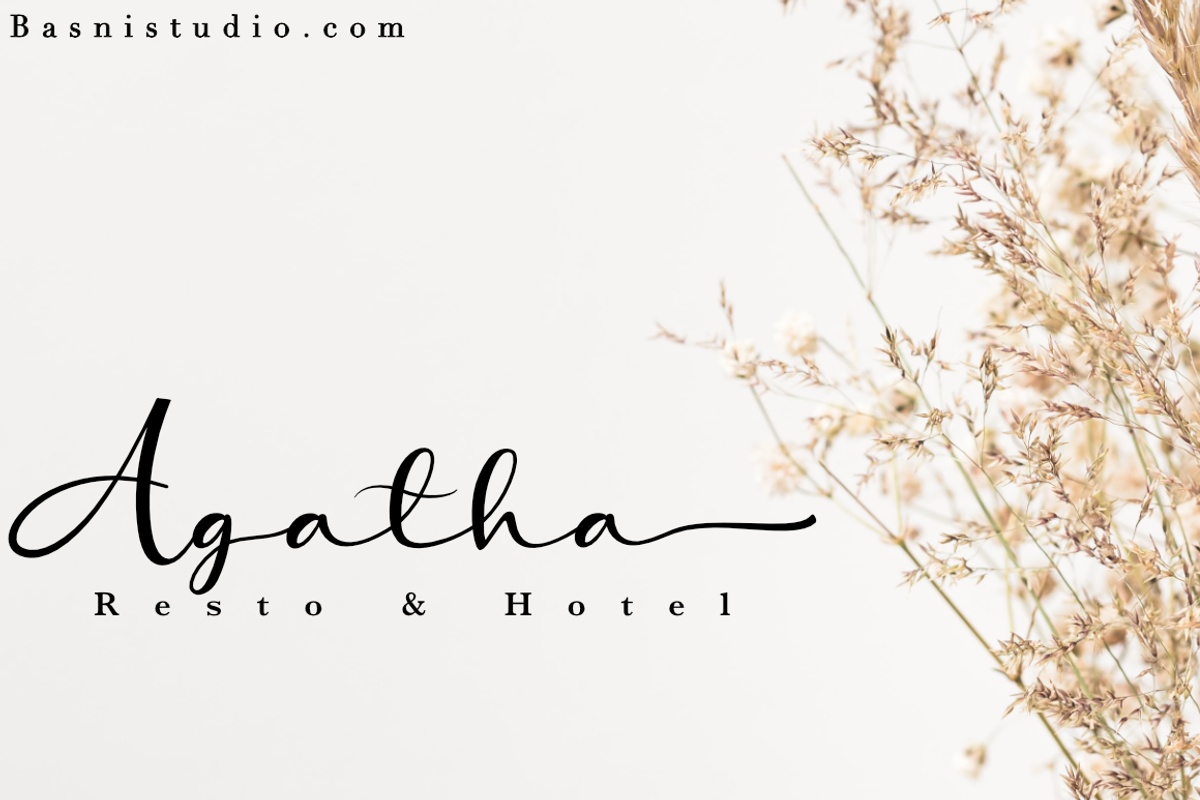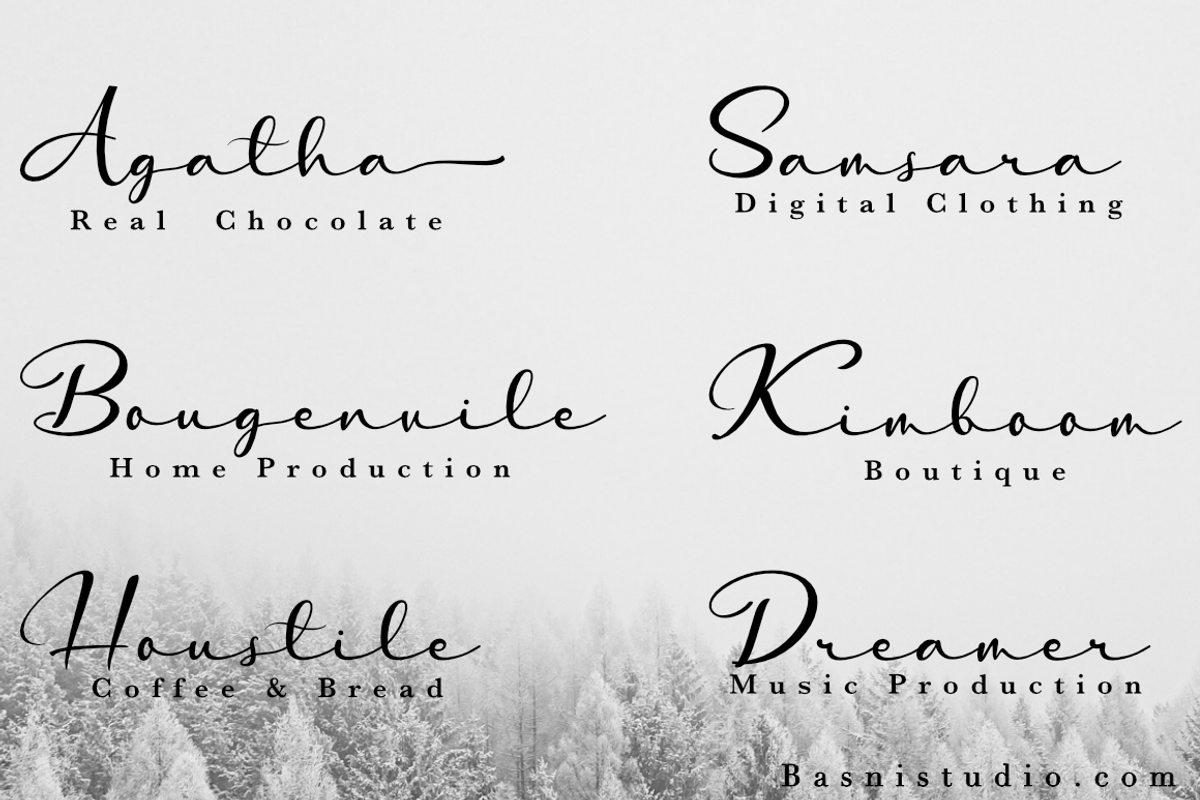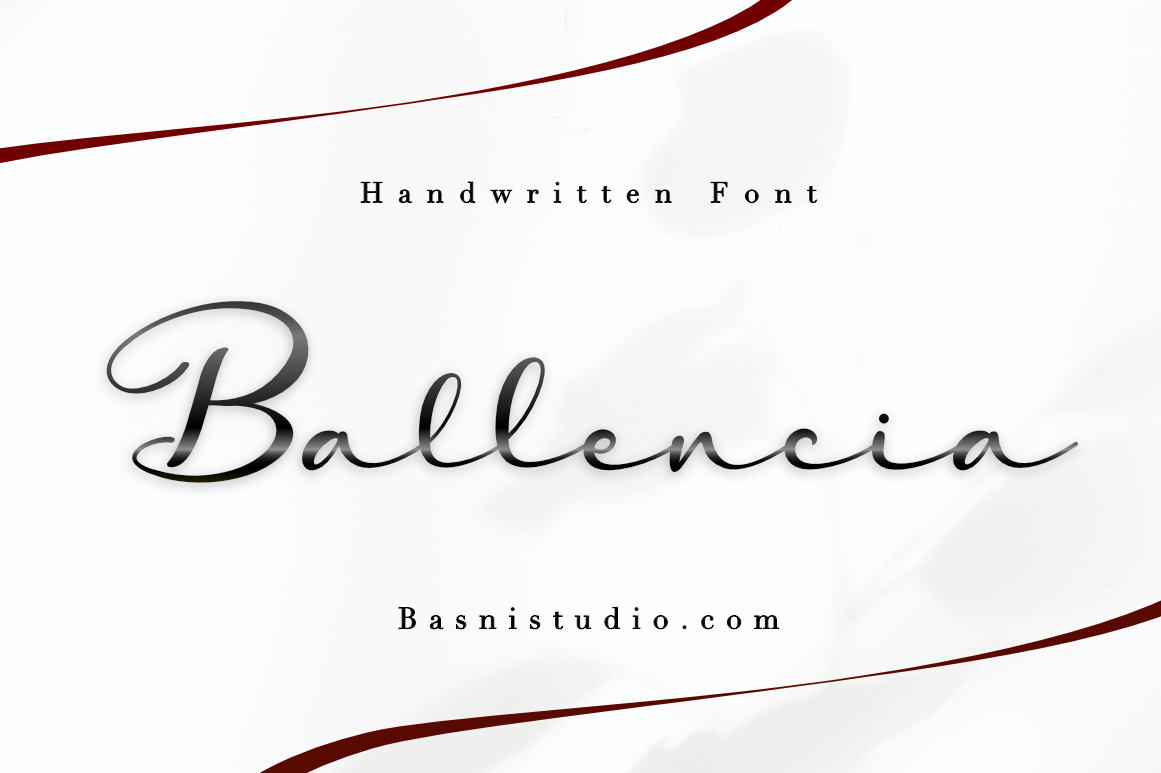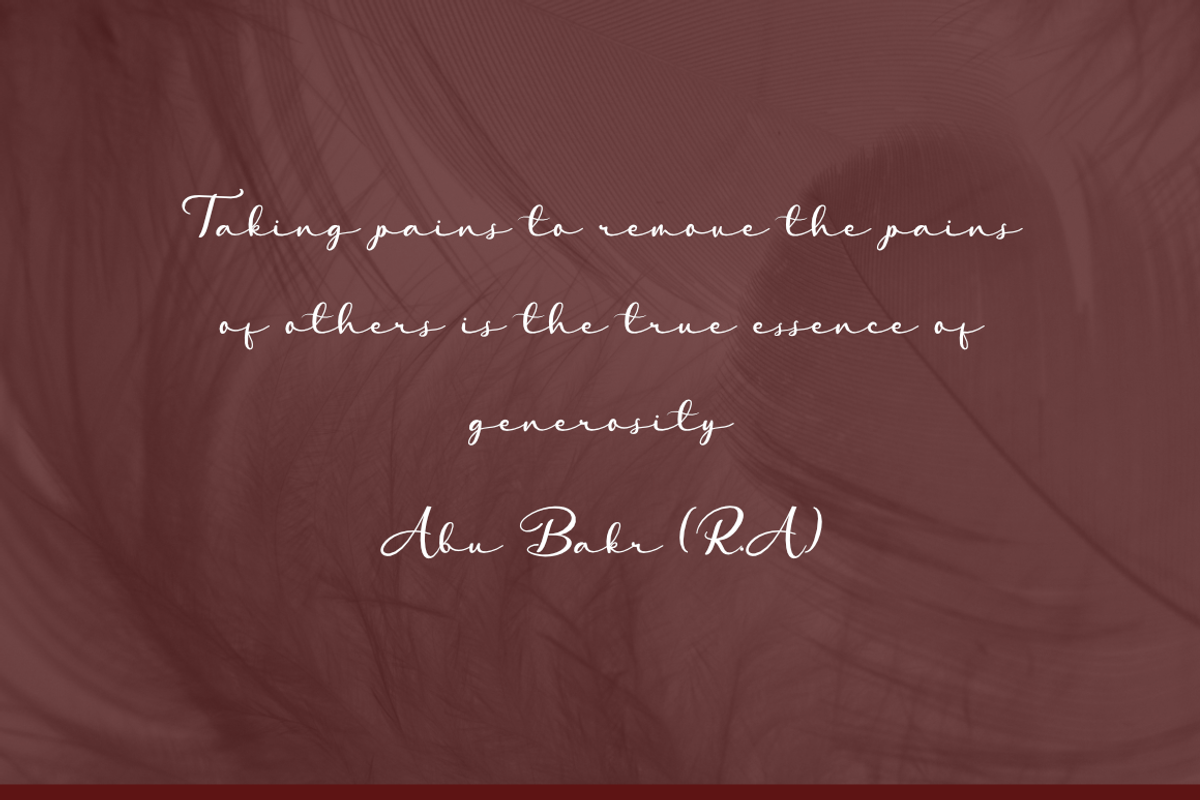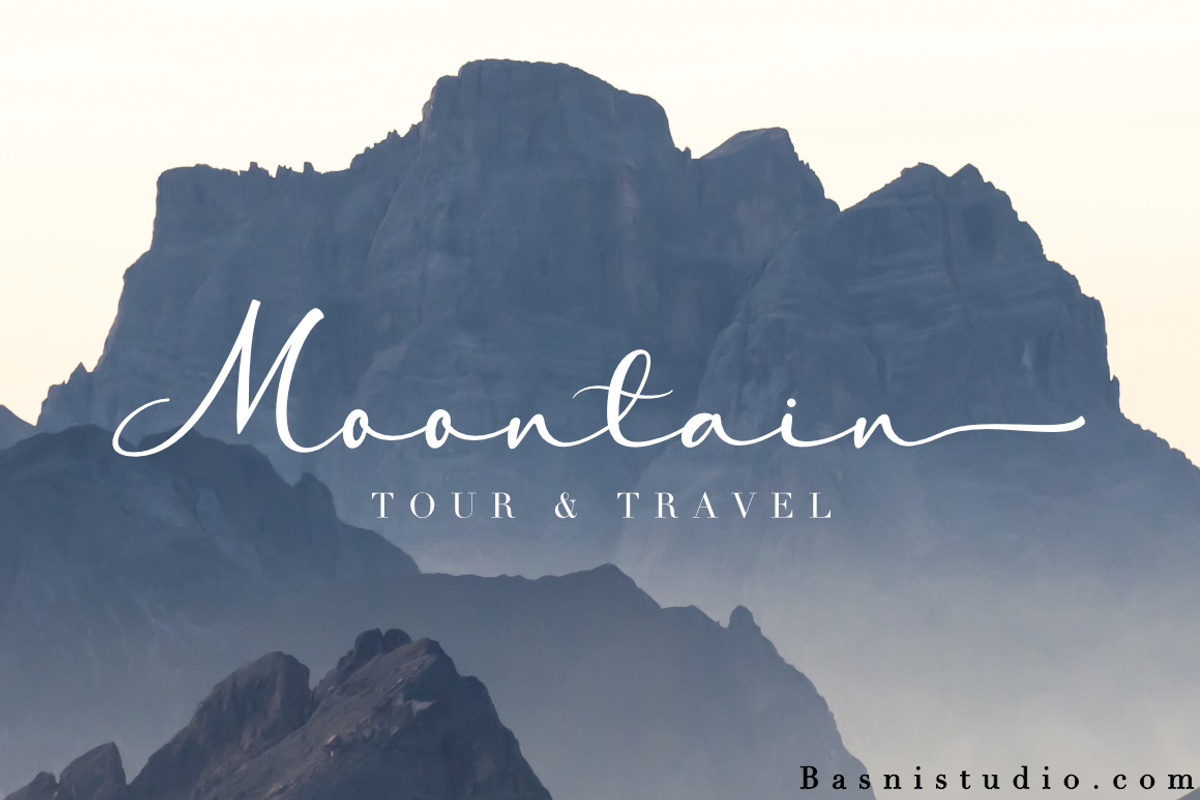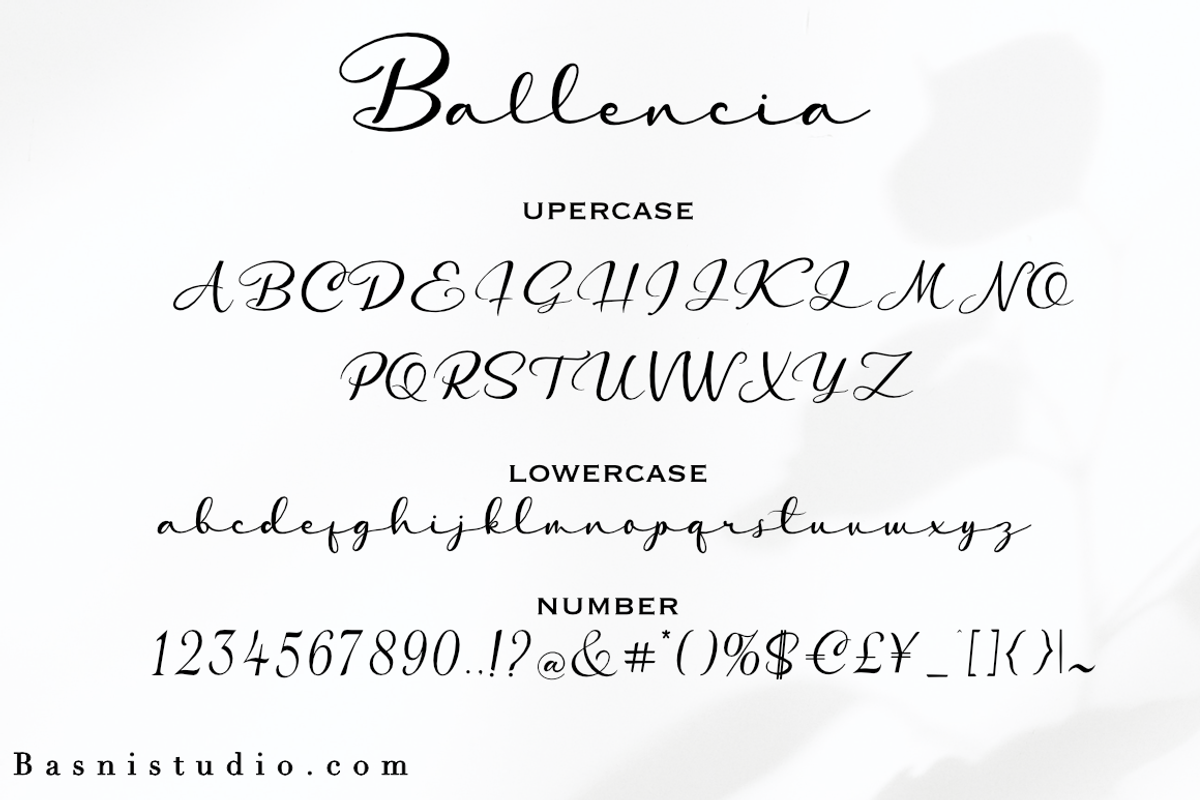
Ballencia Handwritten Font
Introducing Ballencia, Handwritten font
Ballencia looks naturally & Modern, made with details and precision, perfect for branding, websites, design invitation, and editorial designs. Includes all upper and lower case letters, multilingual support, punctuation, binding and initial and final swash. everything can be easily accessed using software that supports OpenType. What's include: